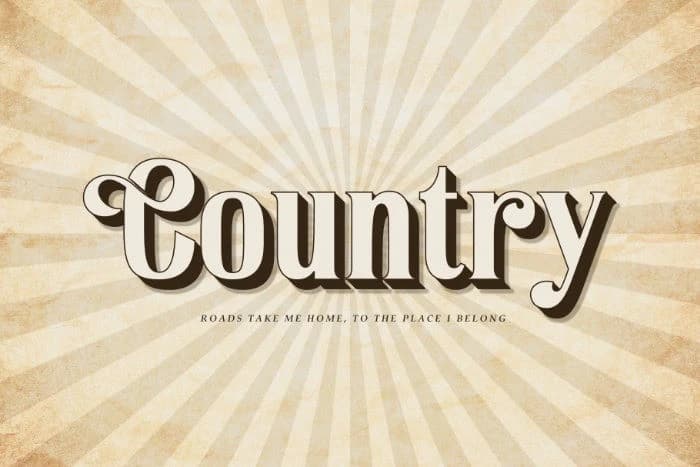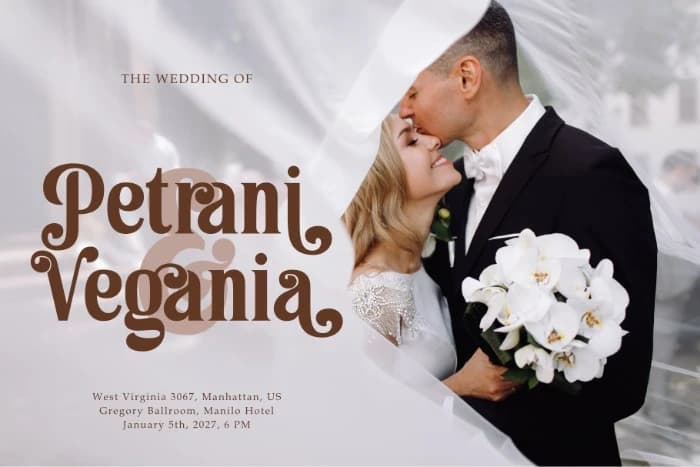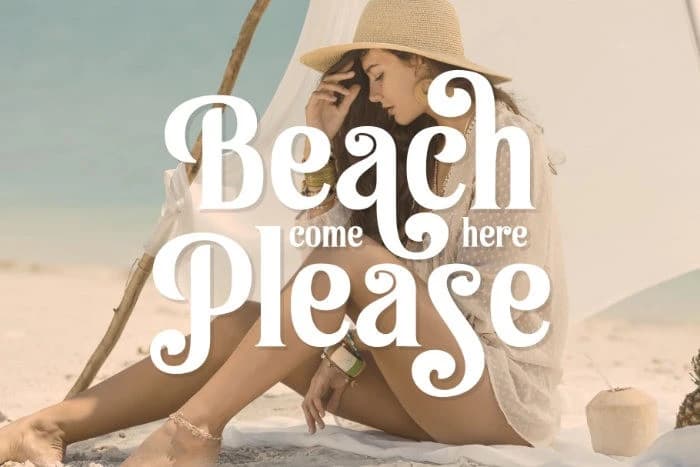
Reptilian Font is a stunning Display Classic Serif font designed to bring elegance and character to any creative project. With its refined letterforms and sophisticated design, this font embodies timeless beauty while offering a modern twist.